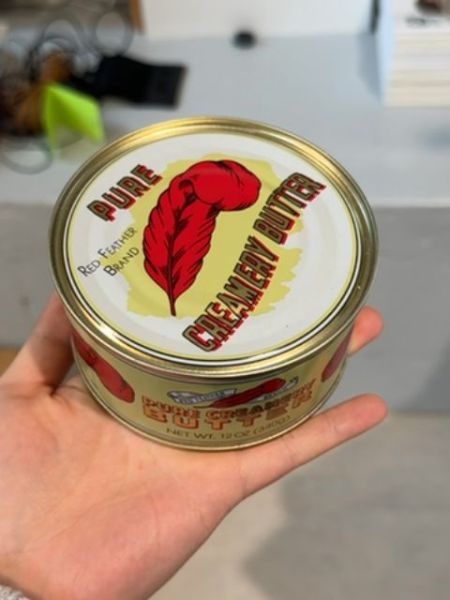
Red Feather Brand Pure Creamery Butter
This is a canned pure creamery butter ideal for storage and long-term use.
USA
The typography uses a bold, sans-serif font with a slight slant, giving it a dynamic, retro appearance. The letters are slightly condensed with high contrast, which enhances readability against the cream-colored background.
The packaging is a metallic tin can with a vintage design. It features a prominent red feather graphic, giving it a nostalgic, old-fashioned feel.
- The product is suited for long-term storage.
- The can design has a vintage appeal.
- It is marketed under the Red Feather brand.